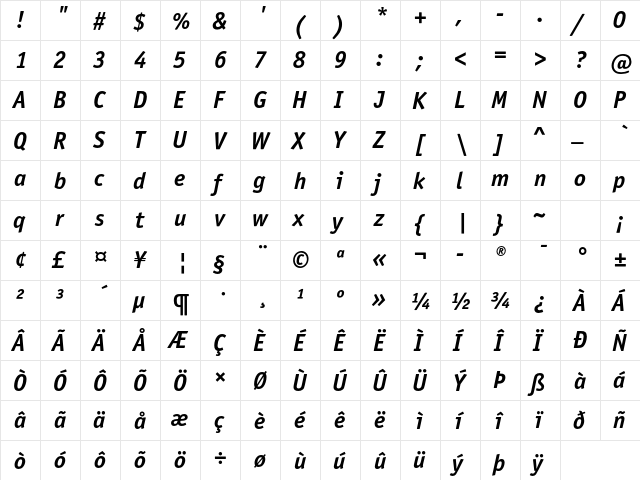
OfficinaSansITCStd BoldItalic
| Designer | Erik Spiekermann and Ole Schaefer |
Design Context for OfficinaSansITCStd Typeface
OfficinaSansITCStd is a composed and adaptable typeface that performs quietly and consistently across a wide range of design contexts. The dynamic lean of this cut emphasises speed and emphasis in any layout. The heavy weight commands attention and anchors typographic hierarchies.
Pro Tip: Use OfficinaSansITCStd for emphasis, pull quotes, and subheadings where its slanted energy can add rhythm to the layout.